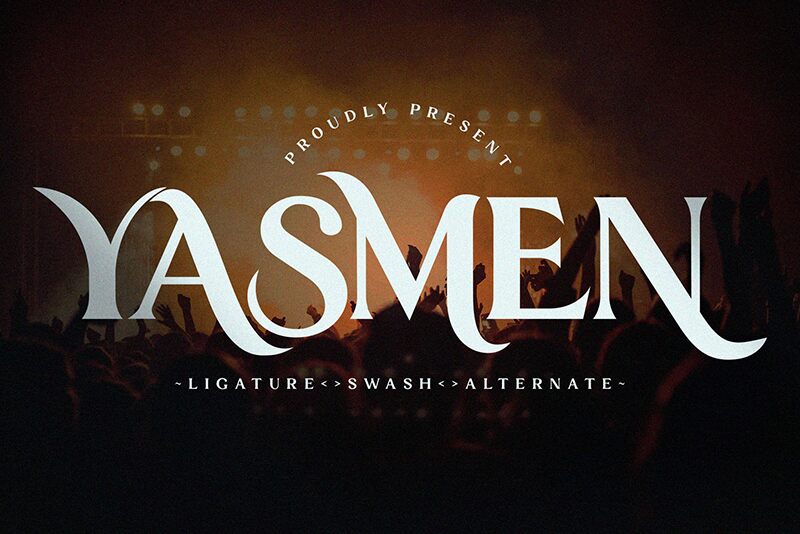
Yasmen
Yasmen, designed by Dwi Sulistyono, is a bold serif font that exudes confidence and elegance with every character. Upon first glance, Yasmen captivates with its robust weight and pronounced serifs, creating a commanding presence on the page. The font's balance between traditional readability and modern flair makes it an excellent choice for designers aiming to make a sophisticated statement.
The aesthetic appeal of Yasmen lies in its clean lines combined with just enough character to set it apart from conventional serifs. Its boldness ensures high visibility and impact, ideal for headlines, branding, or any project requiring a touch of class without sacrificing legibility.
Whether embossed on the cover of a luxury catalog or setting the tone on an artisanal coffee shop's menu, Yasmen’s versatile style adapts seamlessly across various creative endeavors. It is this blend of timeless beauty and contemporary boldness that positions Yasmen as not just a font but an essential component in the toolkit of discerning designers.